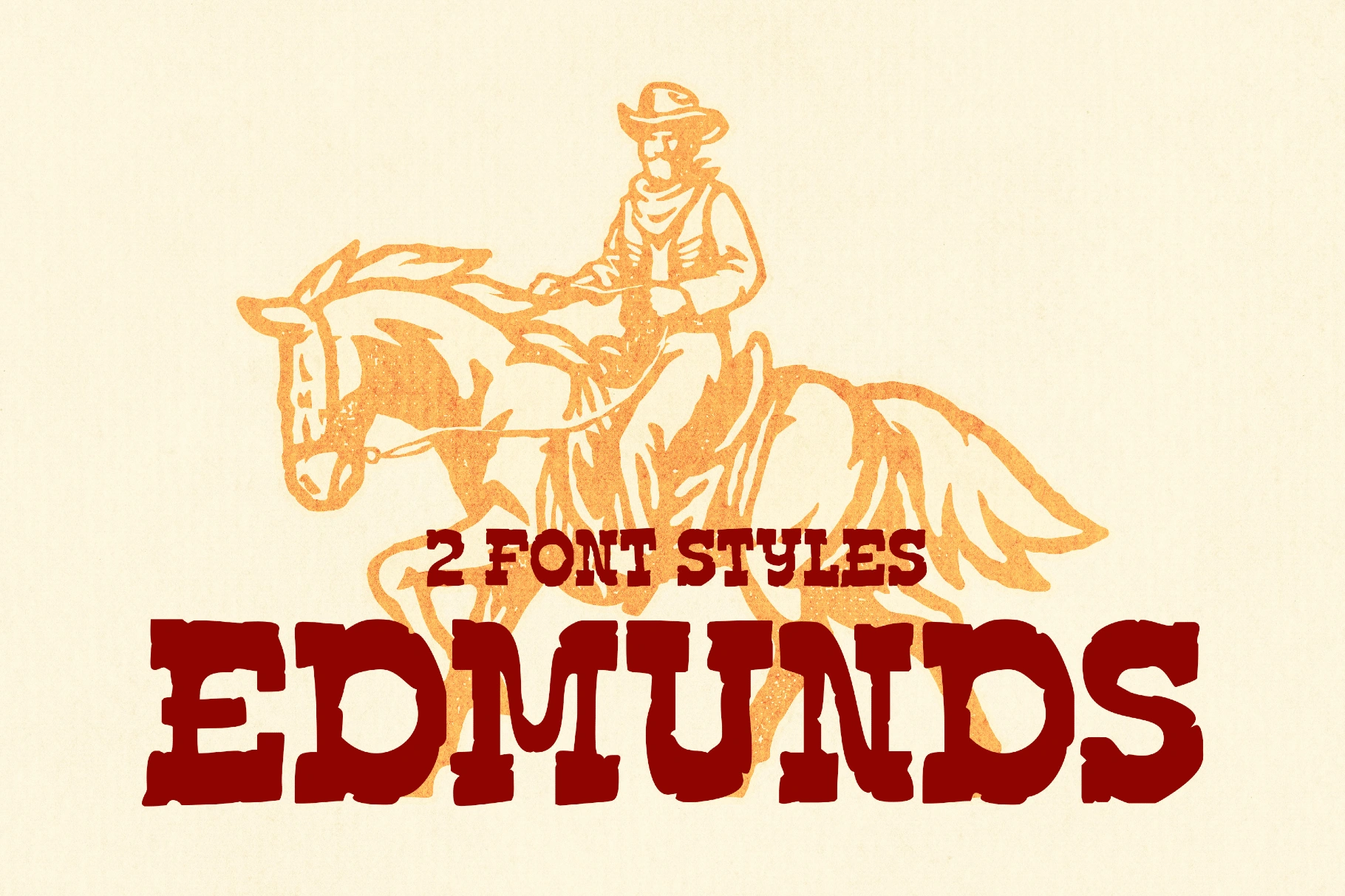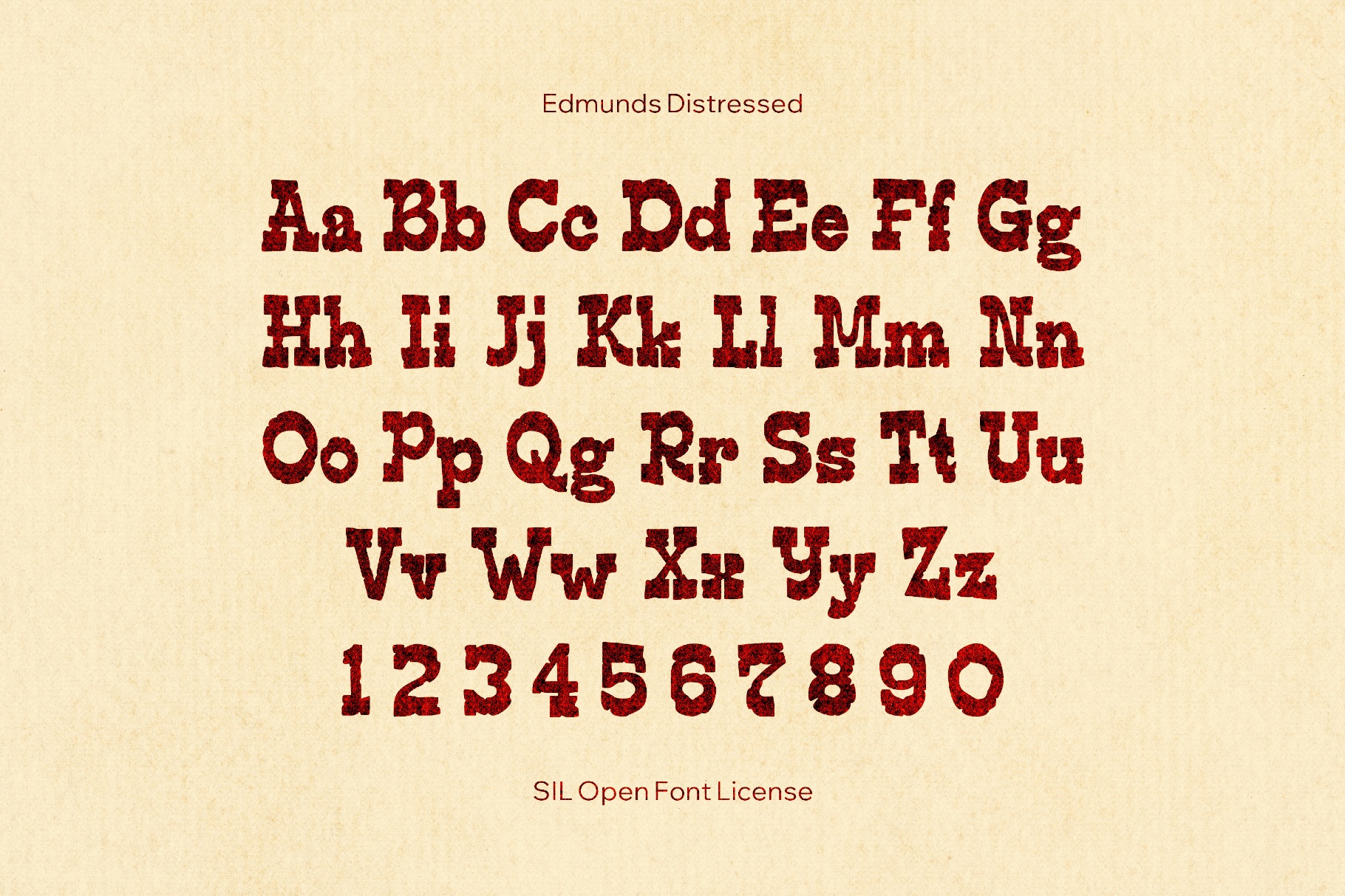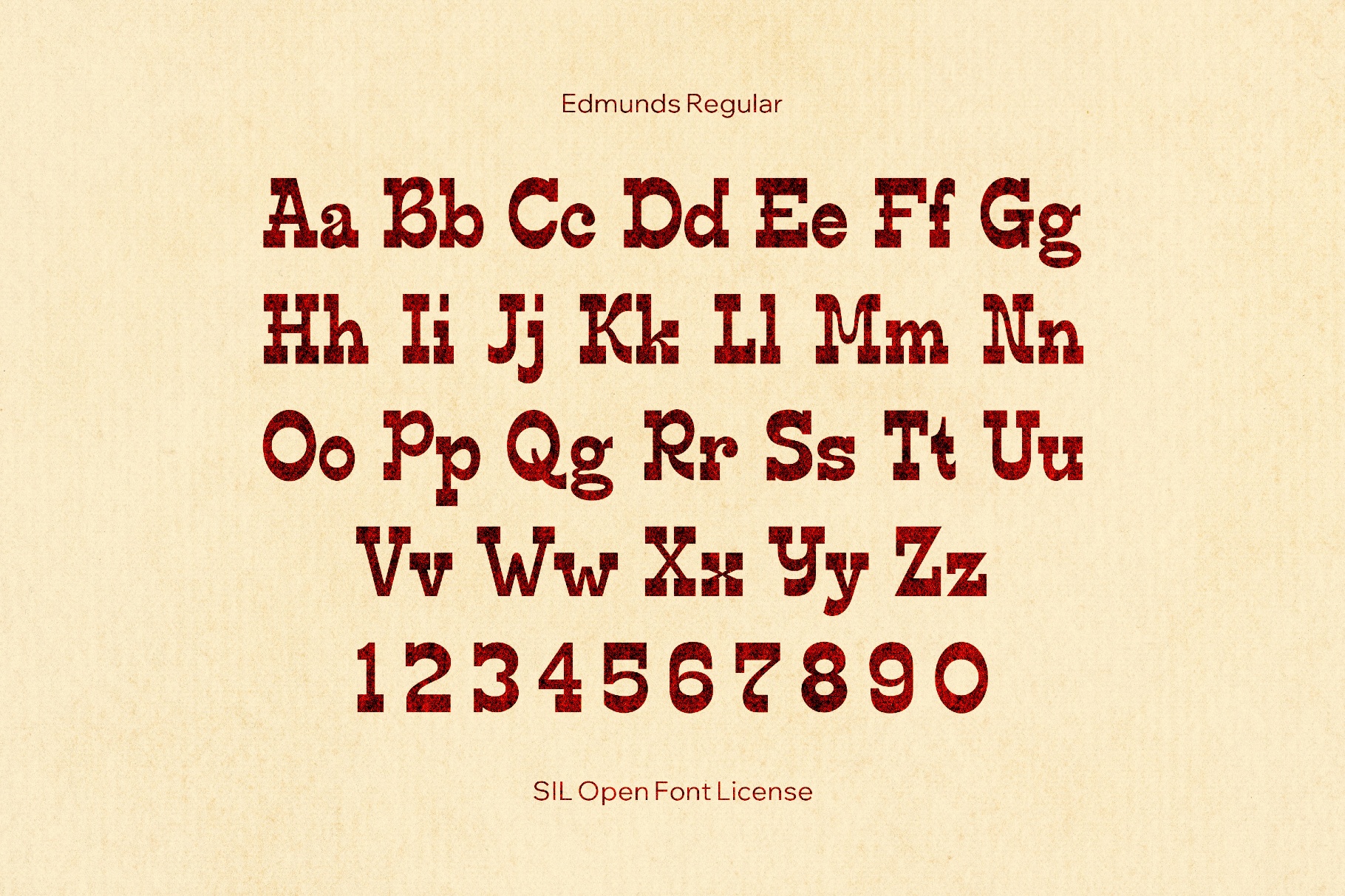
Edmunds Western Font Family
Edmunds
Distressed
Edmunds is a cowboy slab with exaggerated curves and chunky serifs that land halfway between rodeo poster and vintage wood type. The broad and weighty letters suit bold, characterful headlines rather than quiet body text. This font is perfect for long-form editorial, book and magazine interiors, academic reports, branding for cultural institutions, packaging copy, pull quotes, menus, and website typography.
- Two Styles: Regular and Distressed.
- Uppercase and lowercase letters, numbers, punctuation, and symbols.
- International characters and extra symbols with multilingual support across extended Latin-based languages.